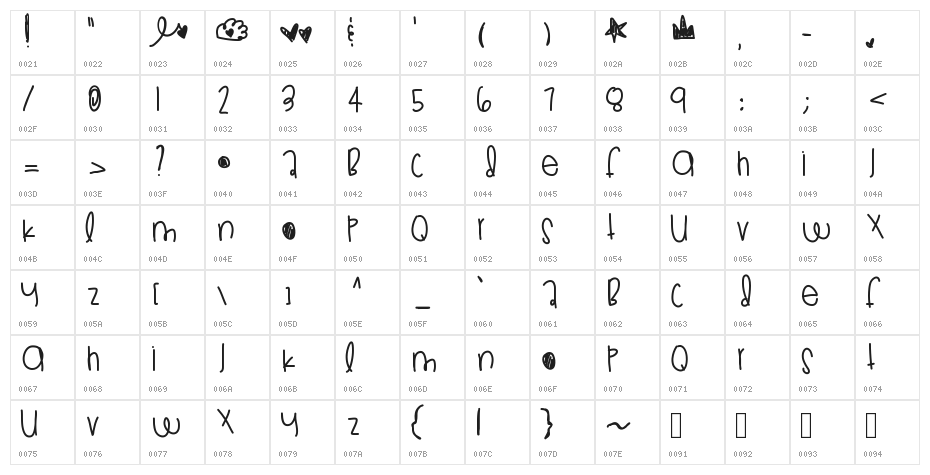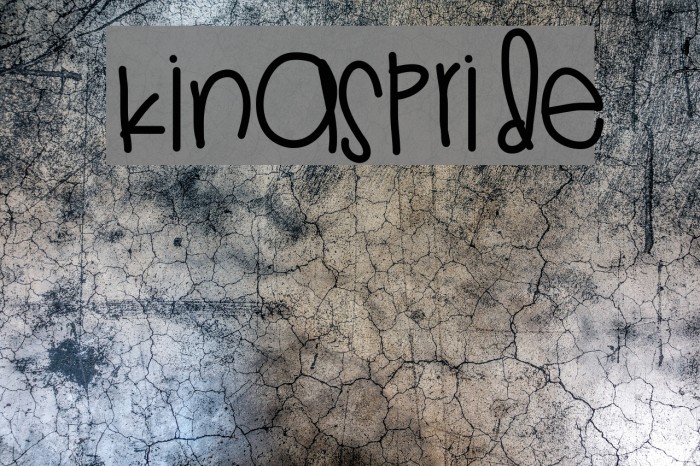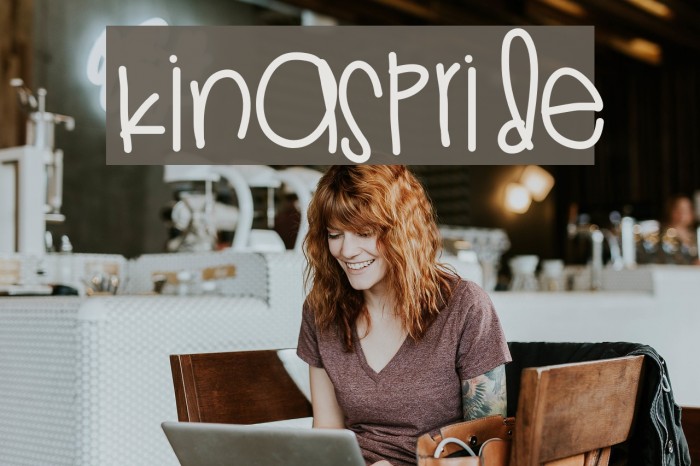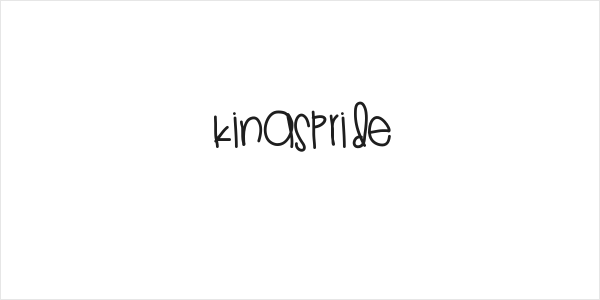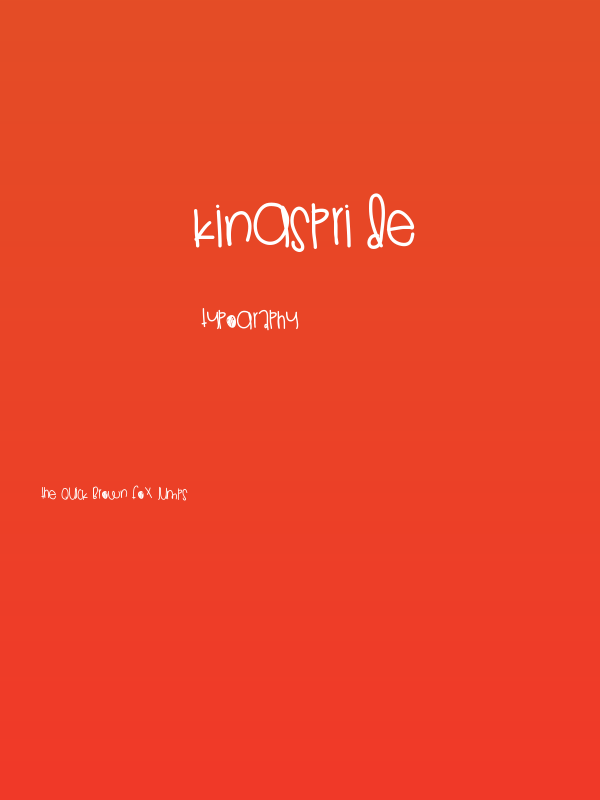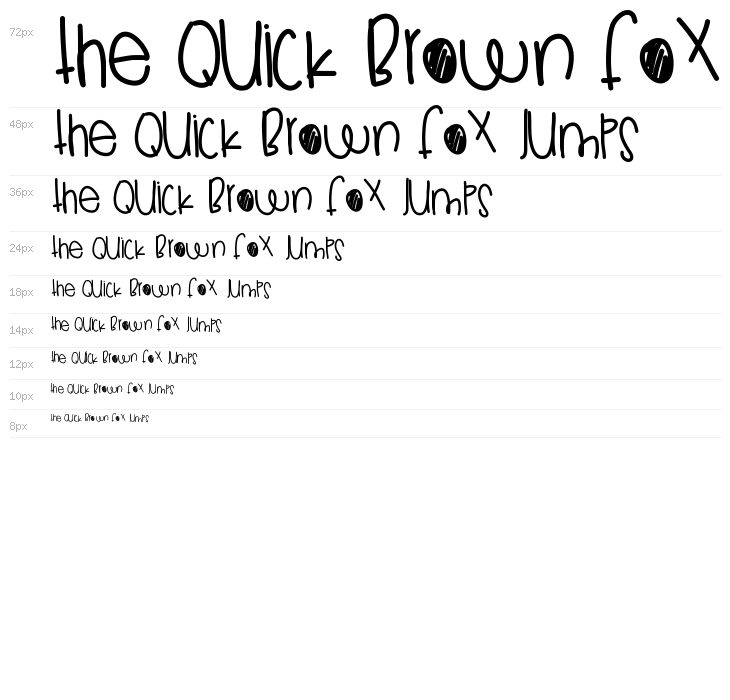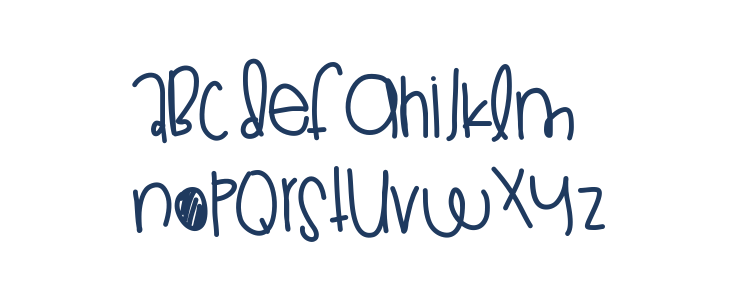
KingsPride Font
KingsPride Description
This playful and whimsical font features a handwritten style with a casual, friendly appearance. The characters are crafted with a smooth, flowing line that gives a sense of movement and spontaneity. The uppercase and lowercase letters maintain a consistent style, with rounded edges and a slightly irregular baseline that adds to the charm. Numbers and special characters are included, each designed with the same playful aesthetic. This font is perfect for projects that require a personal touch, such as greeting cards, children's books, or creative branding.
| Overall Style | Playful |
| Use Case | Logos, Invitations, Greeting Cards |
| Proposed Projects | Ideal for greeting cards, children's books, creative branding, and playful invitations. |